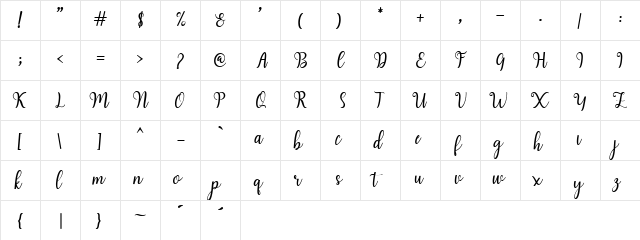
Haearty Script Regular
Design Context for Haearty Script Typeface
Haearty Script flows with the natural rhythm of handwritten lettering, making it ideal for designs that call for warmth and personal expression.
Font Pairing: Combine Haearty Script with a simple geometric sans for maximum contrast — the tension between flowing curves and clean structure is a classic typographic pairing.
Pro Tip: Pair Haearty Script with a clean sans-serif for supporting text. The contrast between fluid script and geometric structure creates an elegant typographic hierarchy.